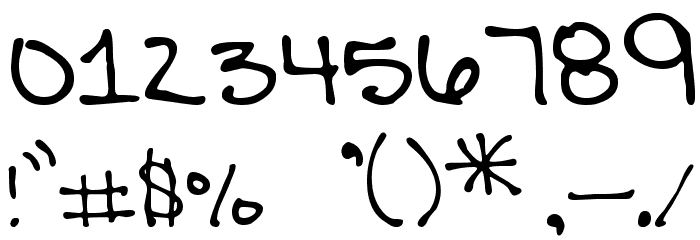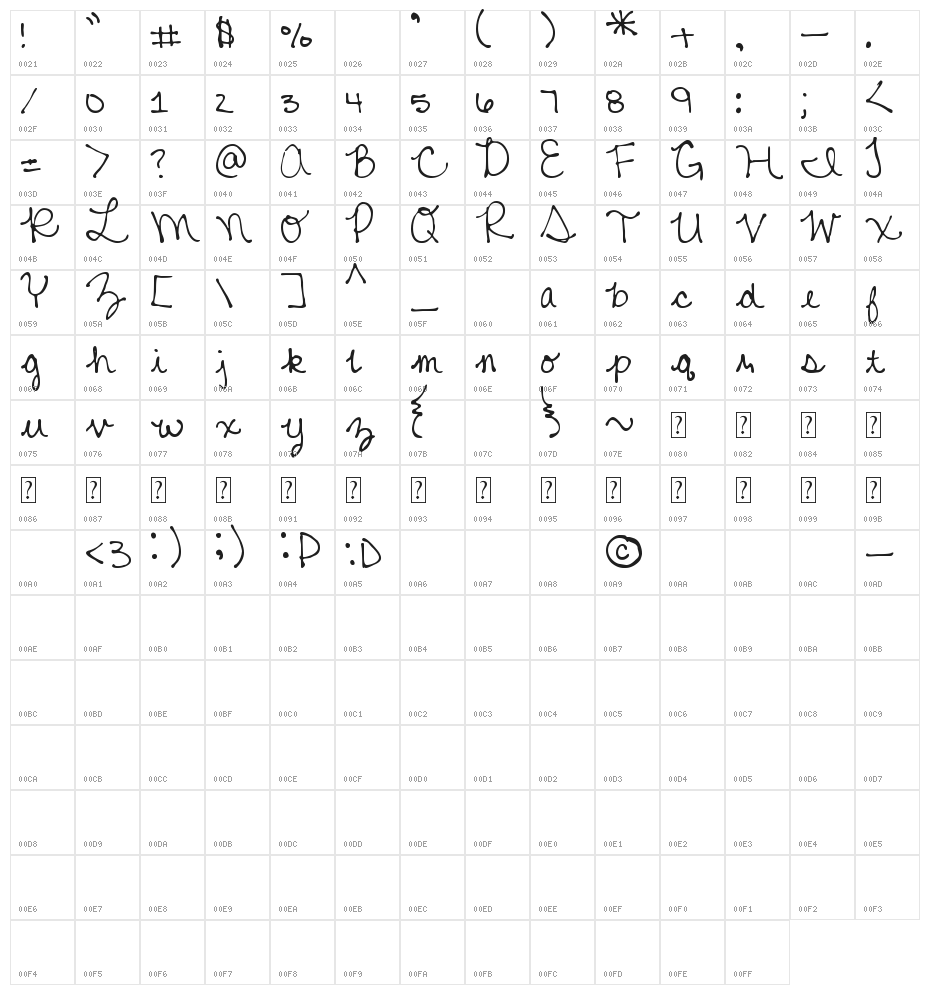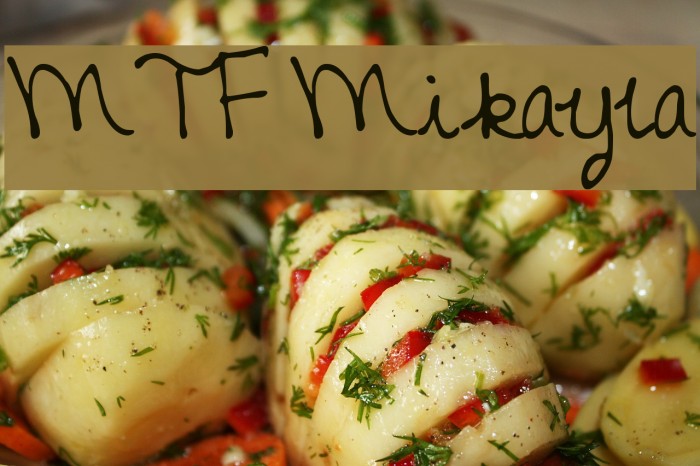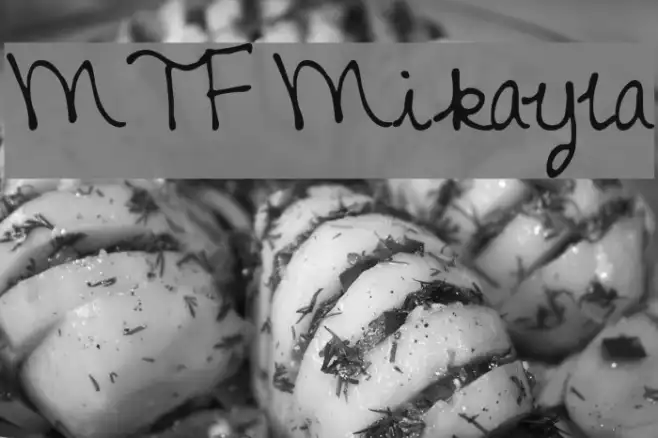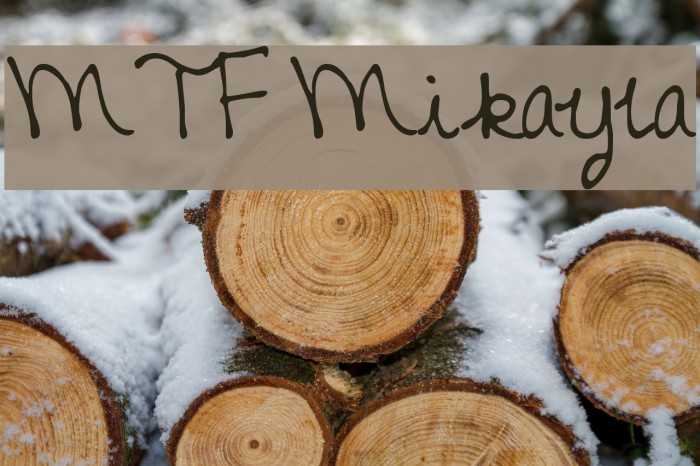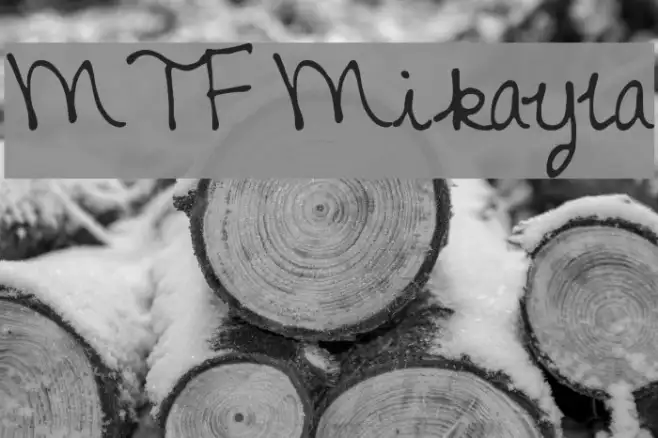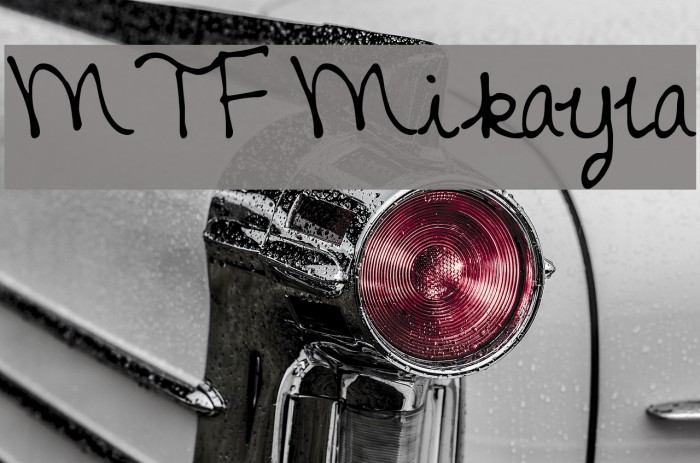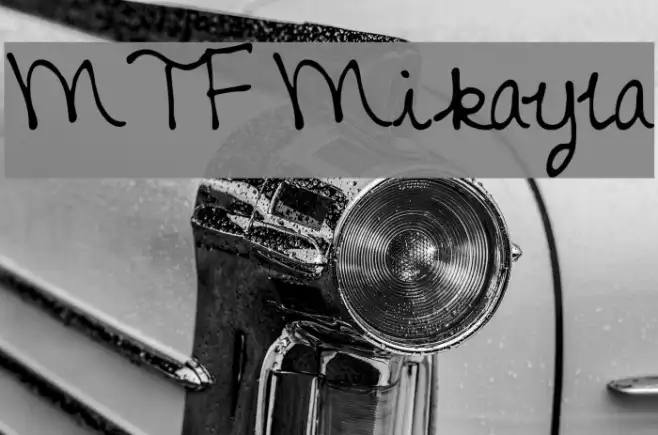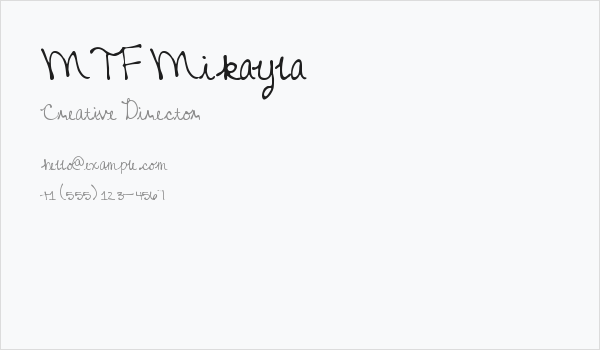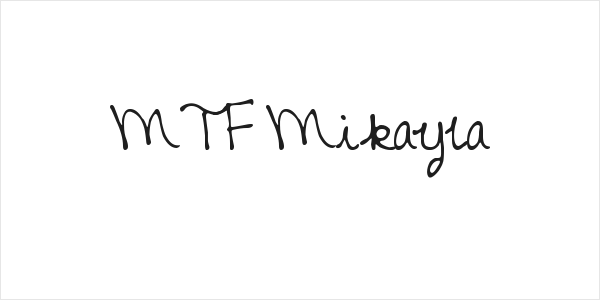
MTF Mikayla Font
MTF Mikayla Description
This font features a playful and casual handwritten style, characterized by its fluid and connected strokes. The uppercase letters exhibit a whimsical flair with varying heights and loops, while the lowercase letters maintain a consistent flow, enhancing readability. The numerals are bold and slightly rounded, complementing the overall informal aesthetic. Special characters are creatively integrated, adding to the font's charm. Its organic and lively appearance makes it suitable for projects that require a personal touch.
| Proposed Projects | Ideal for greeting cards, invitations, personal branding, and creative projects that require a friendly and approachable feel. |